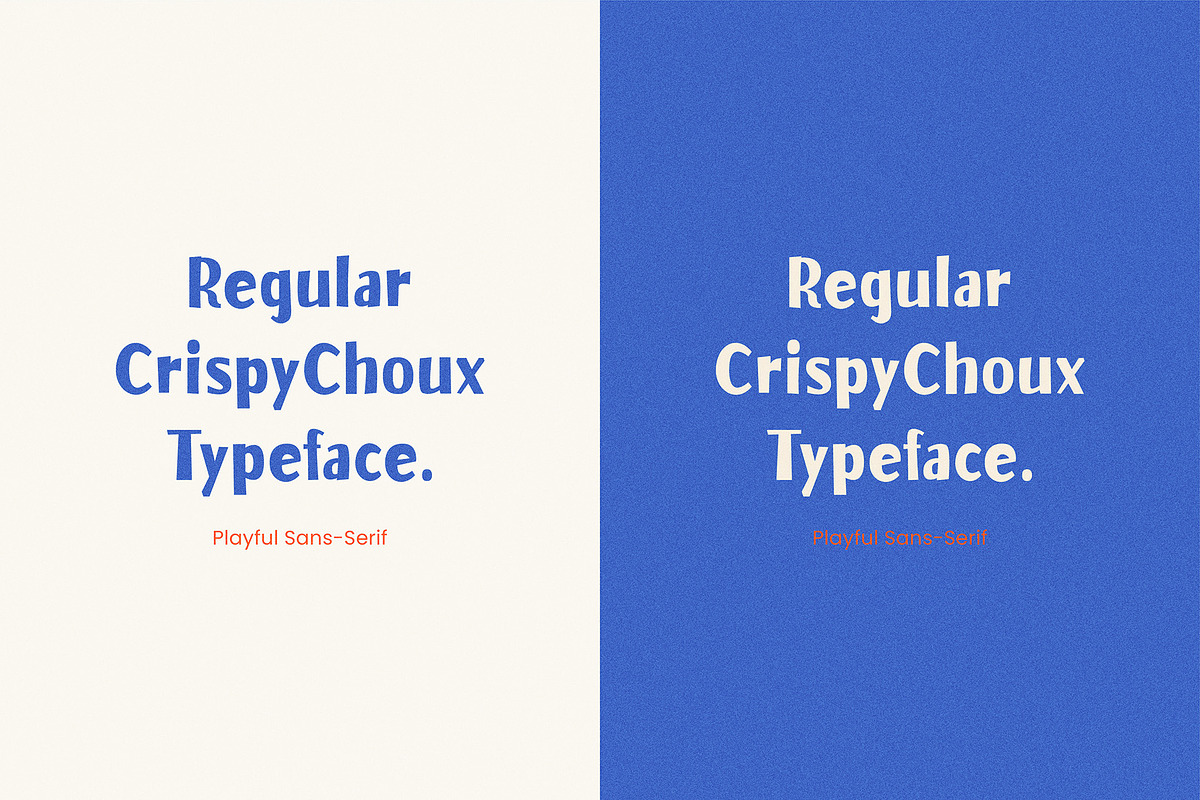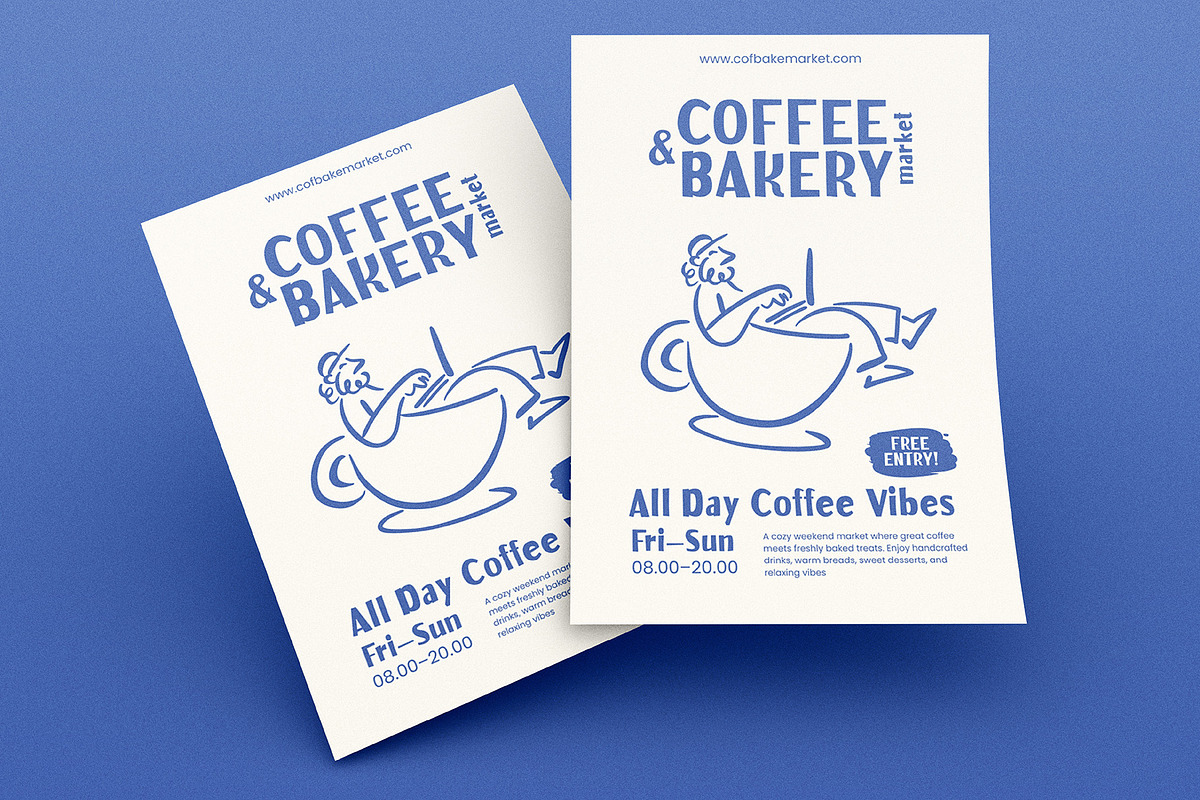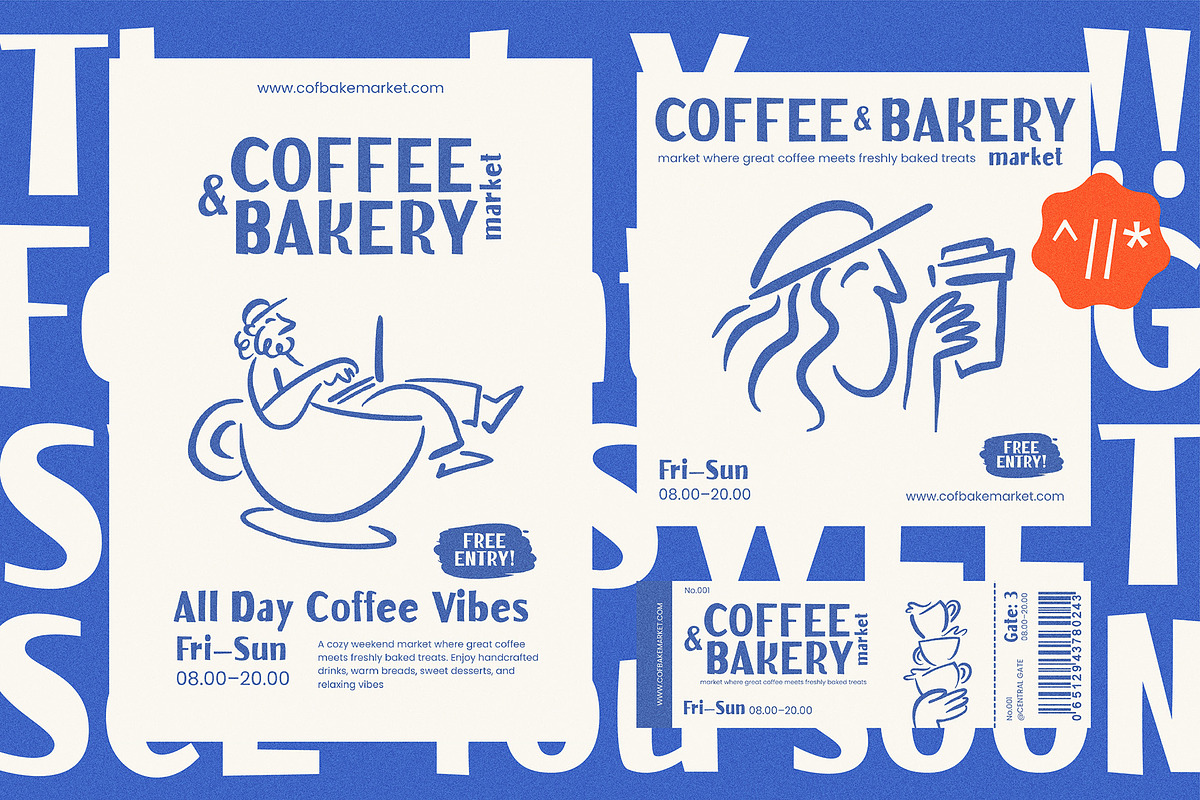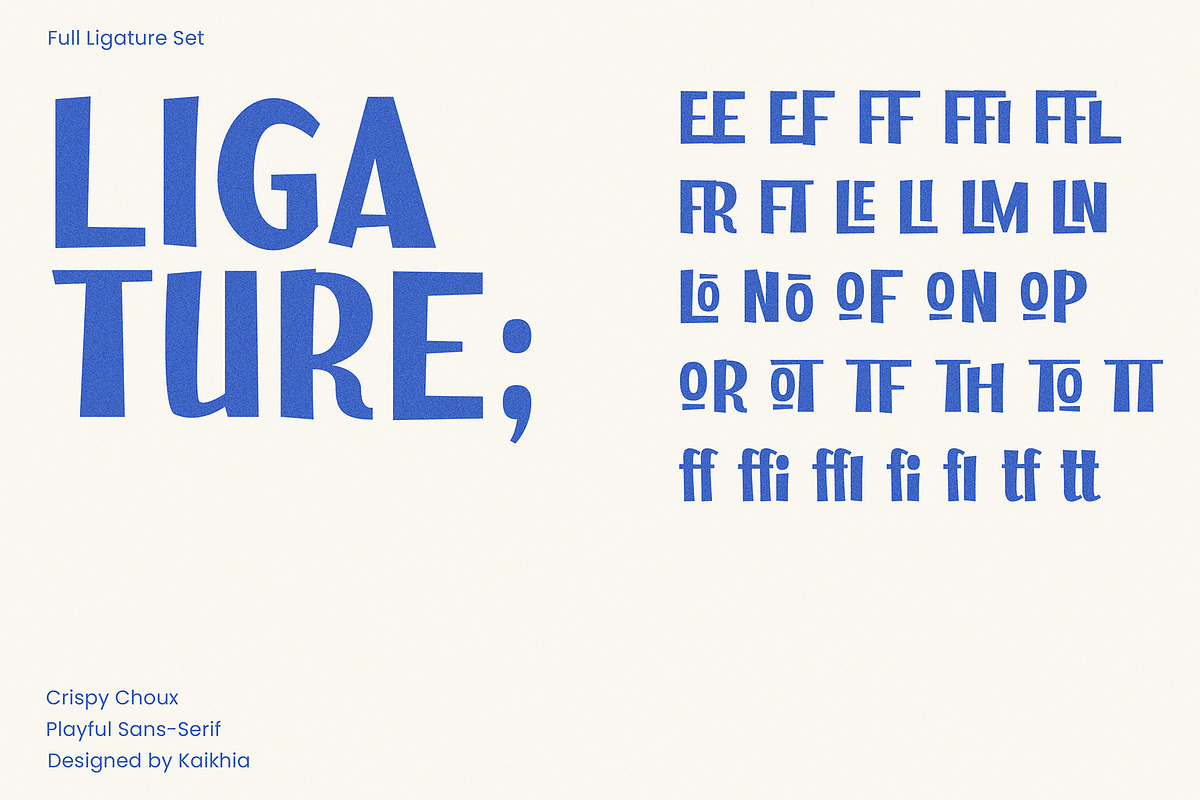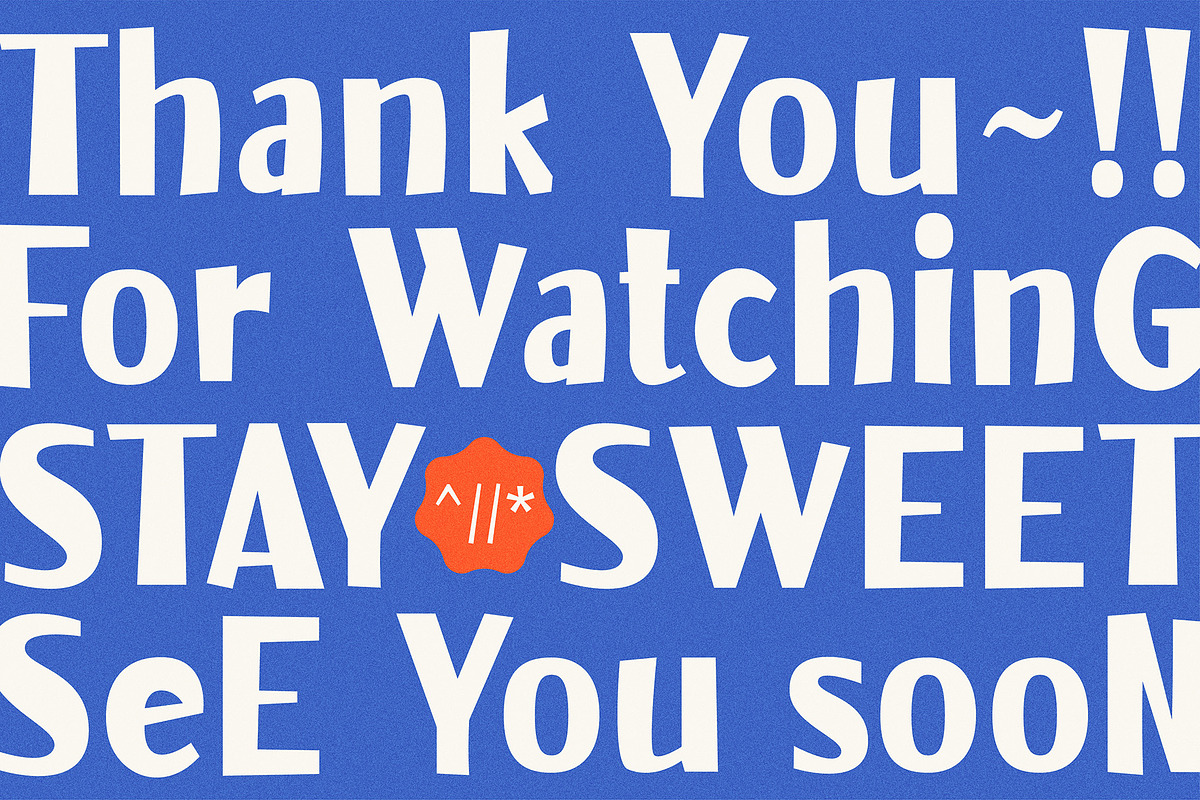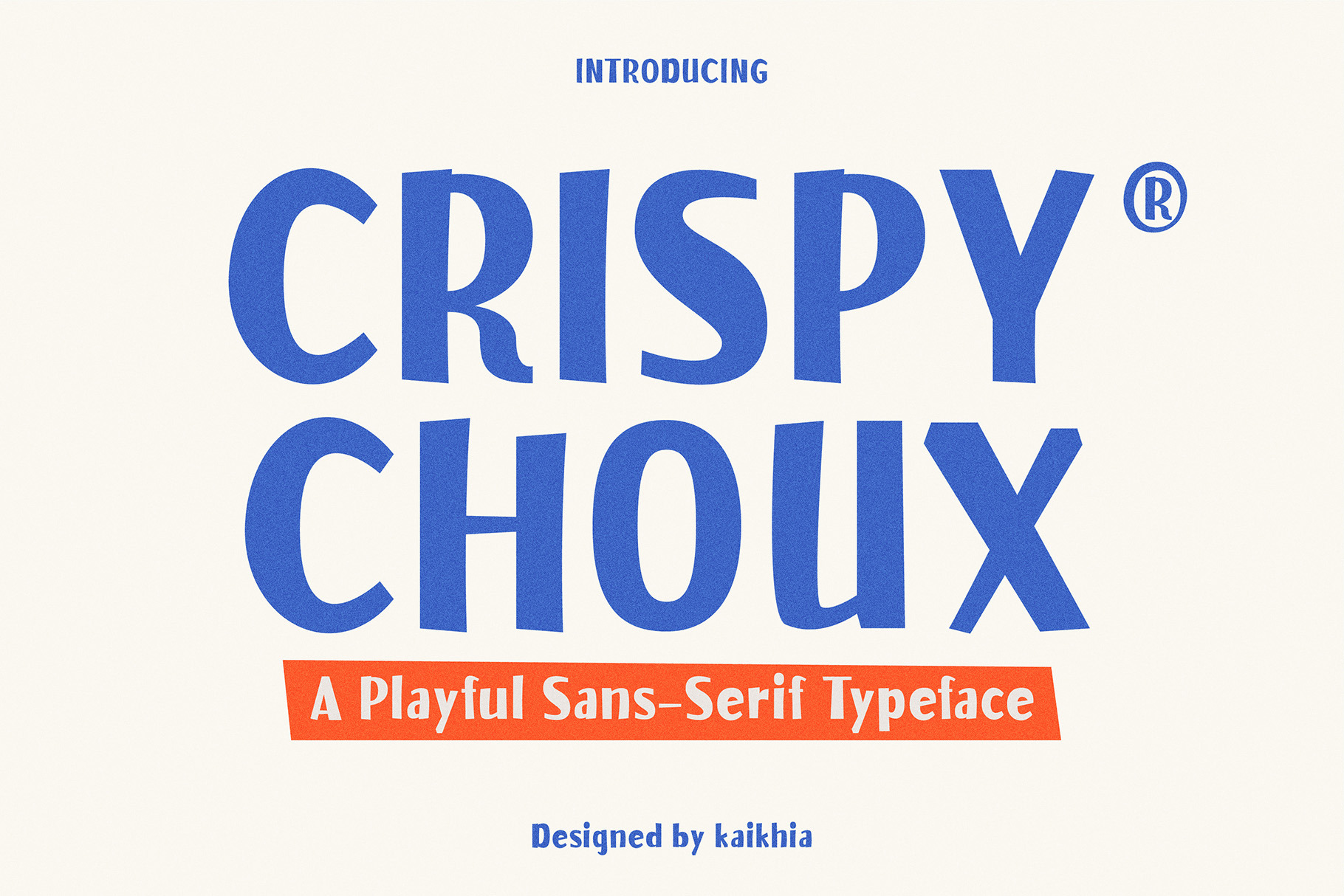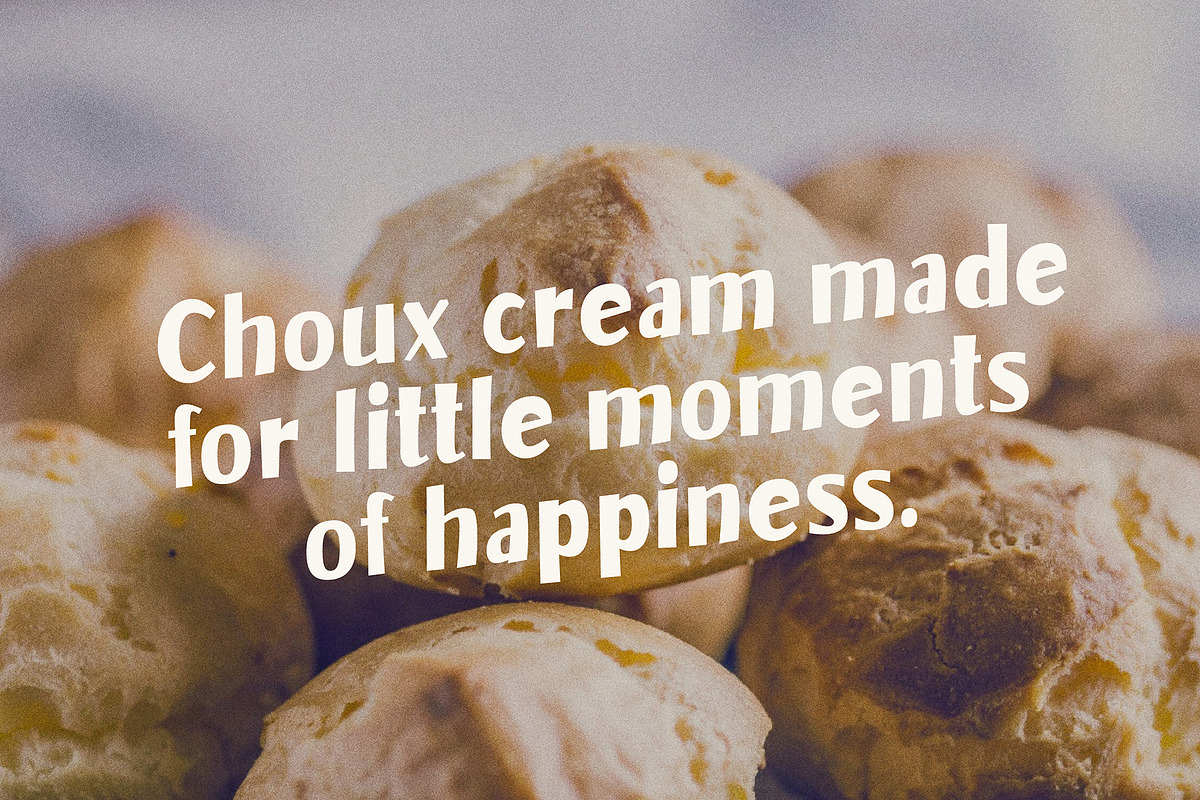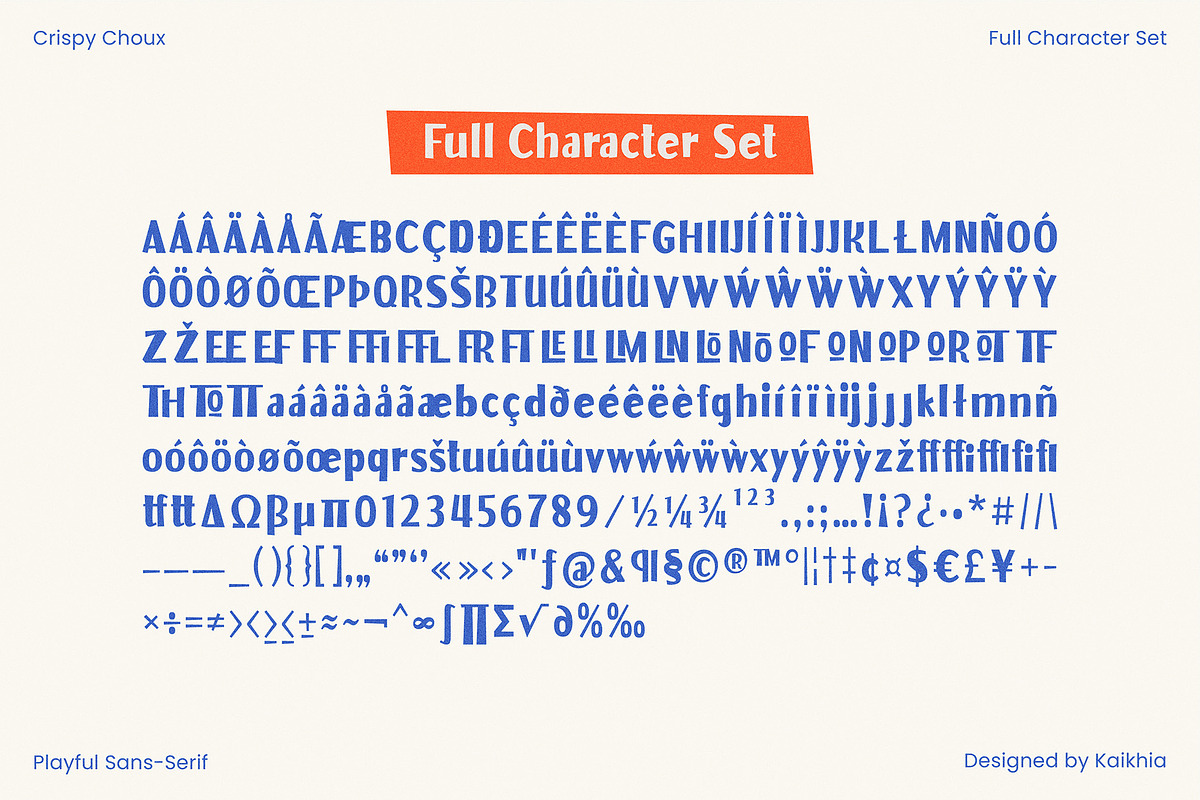
Crispy Choux, Playful Display Font.
Introducing Crispy Choux — Playful Display Font
Meet Crispy Choux, a modern and playful display font designed for casual, friendly projects. Perfect for dessert brands and cafés, it adds character and charm to your designs. It’s also great for branding, packaging, café menus, posters, social media, and all kinds of creative projects.
Whether for digital or print use, Crispy Choux helps your work feel fun, eye-catching, and clean